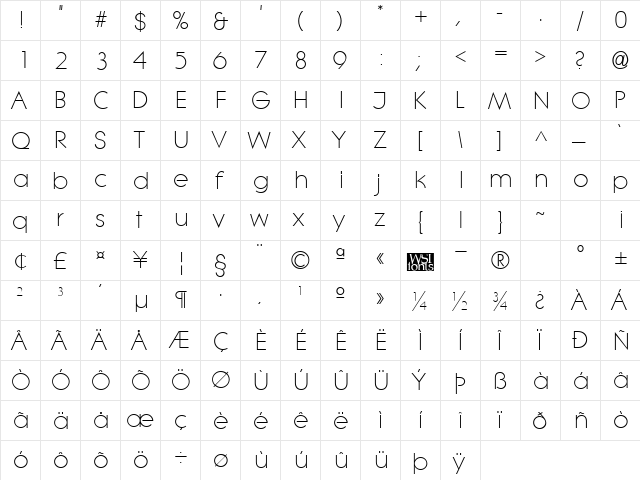
LitheLight Regular
Design Context for LitheLight Typeface
LitheLight takes a measured approach to typography — its balanced proportions and neutral character make it a reliable workhorse for both digital and print work. Its slender proportions lend an understated elegance to any composition.